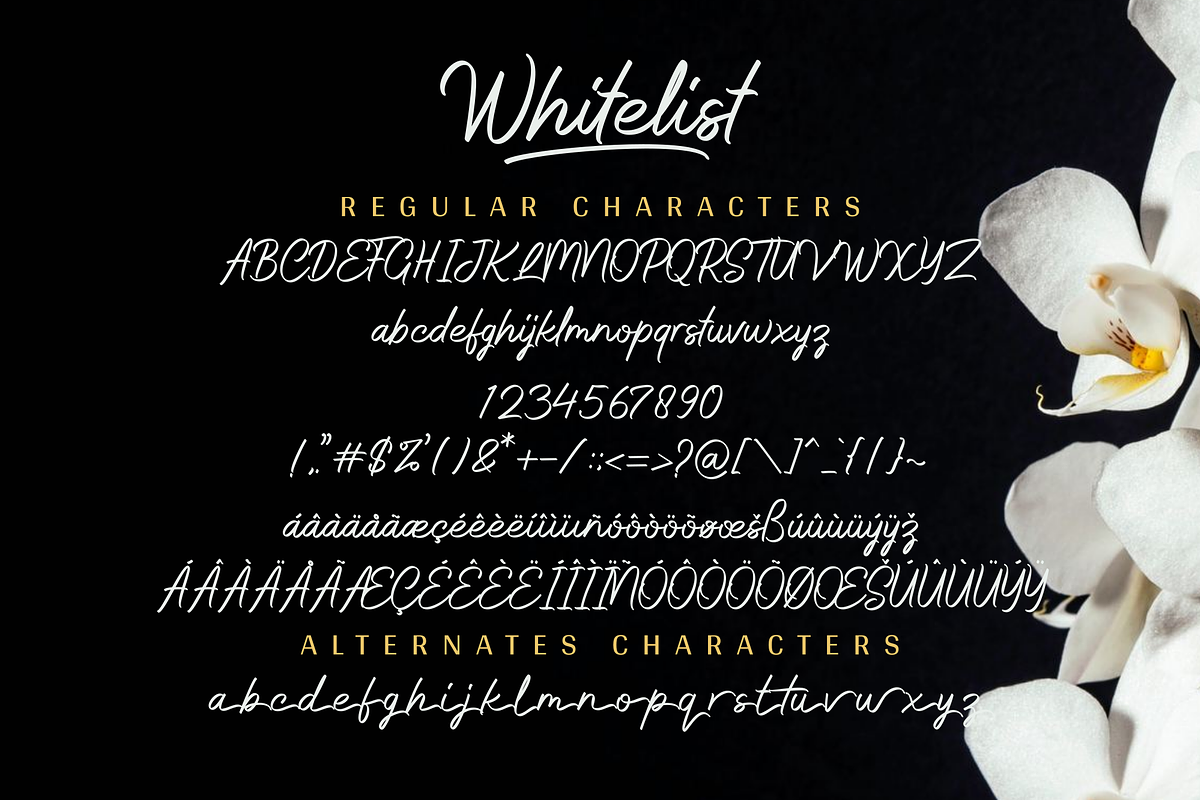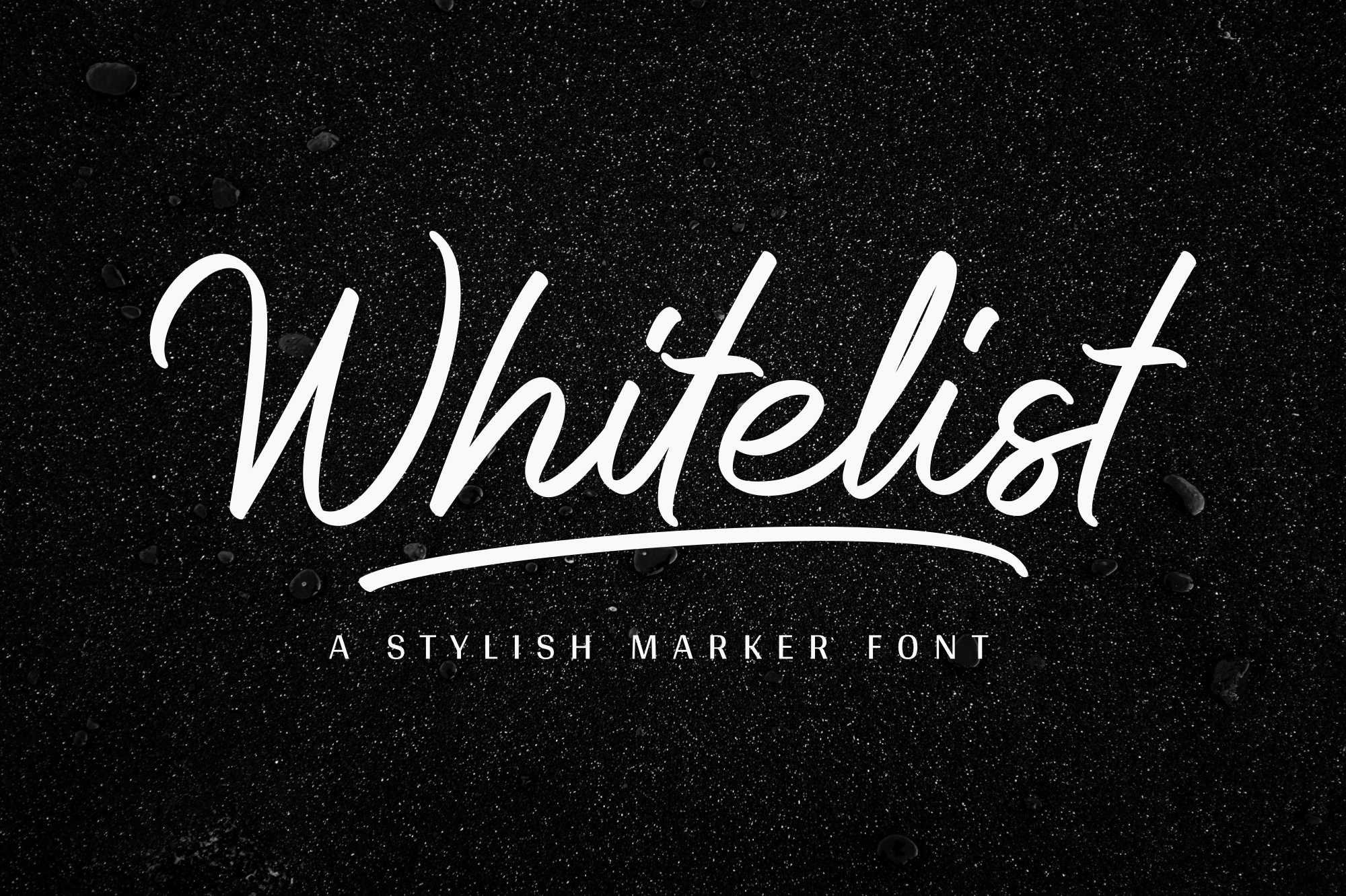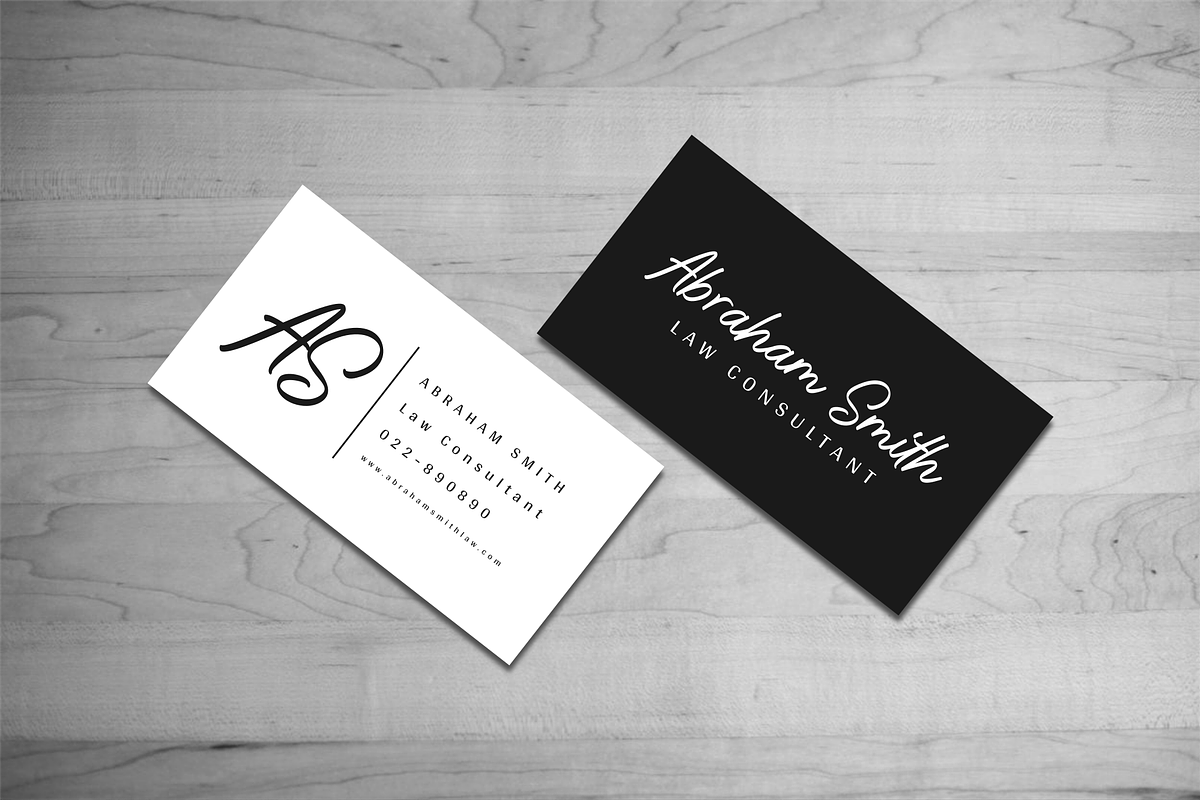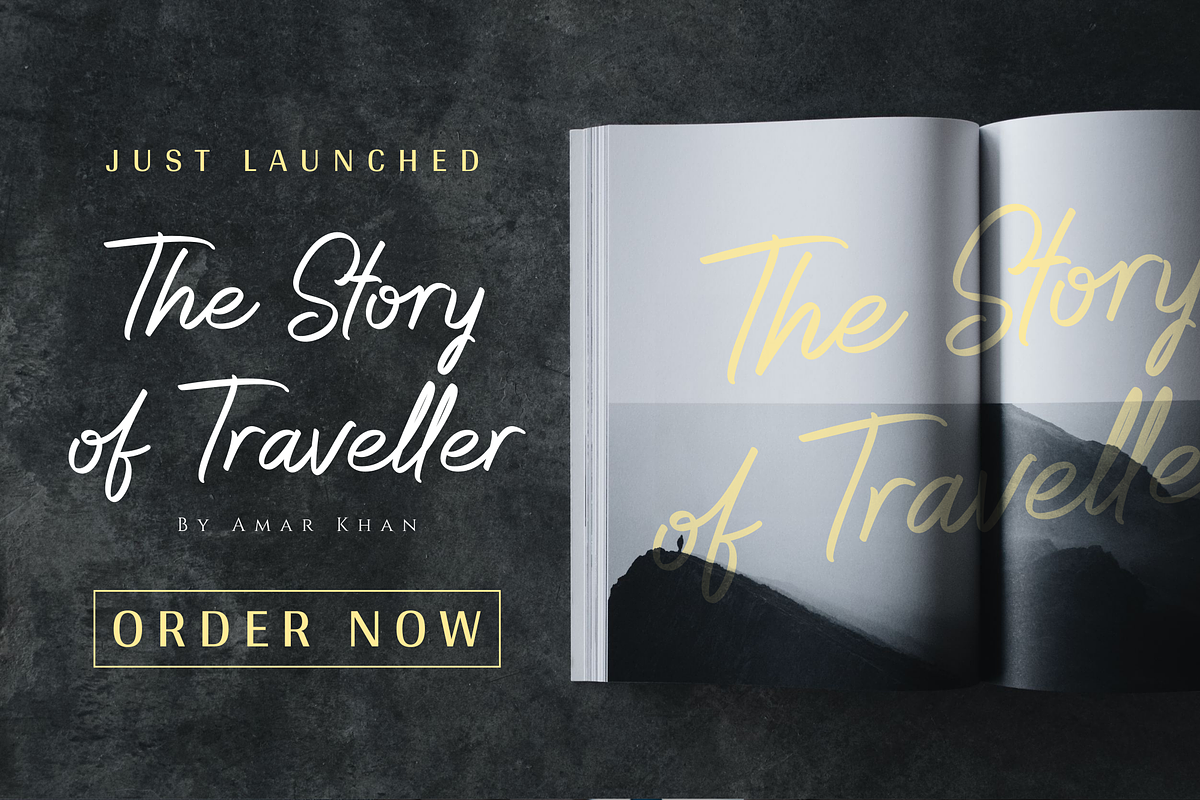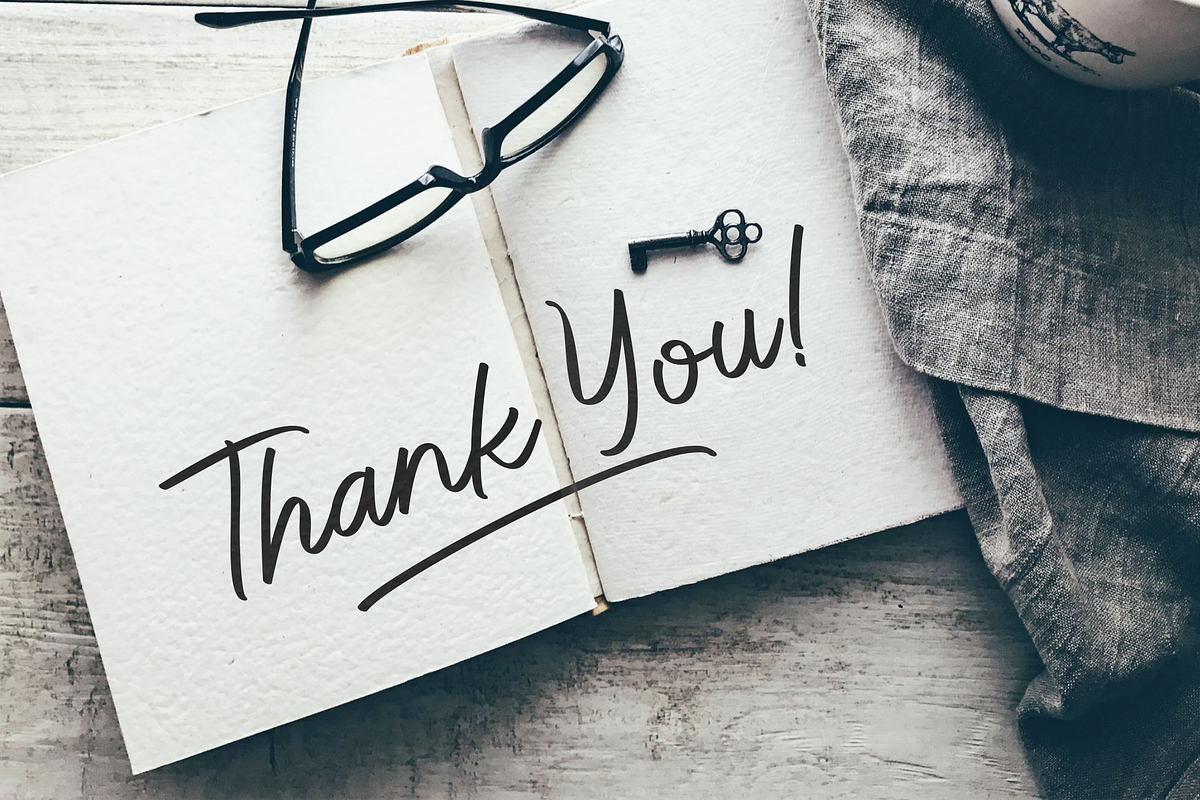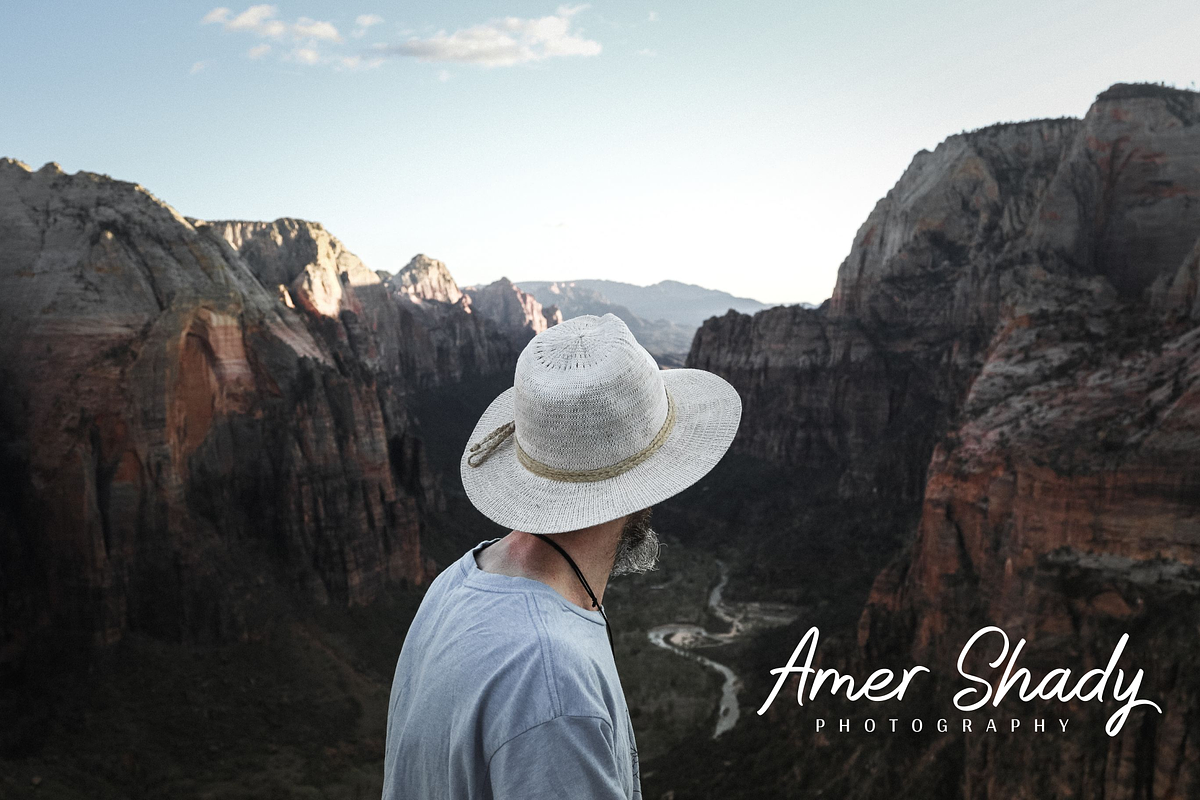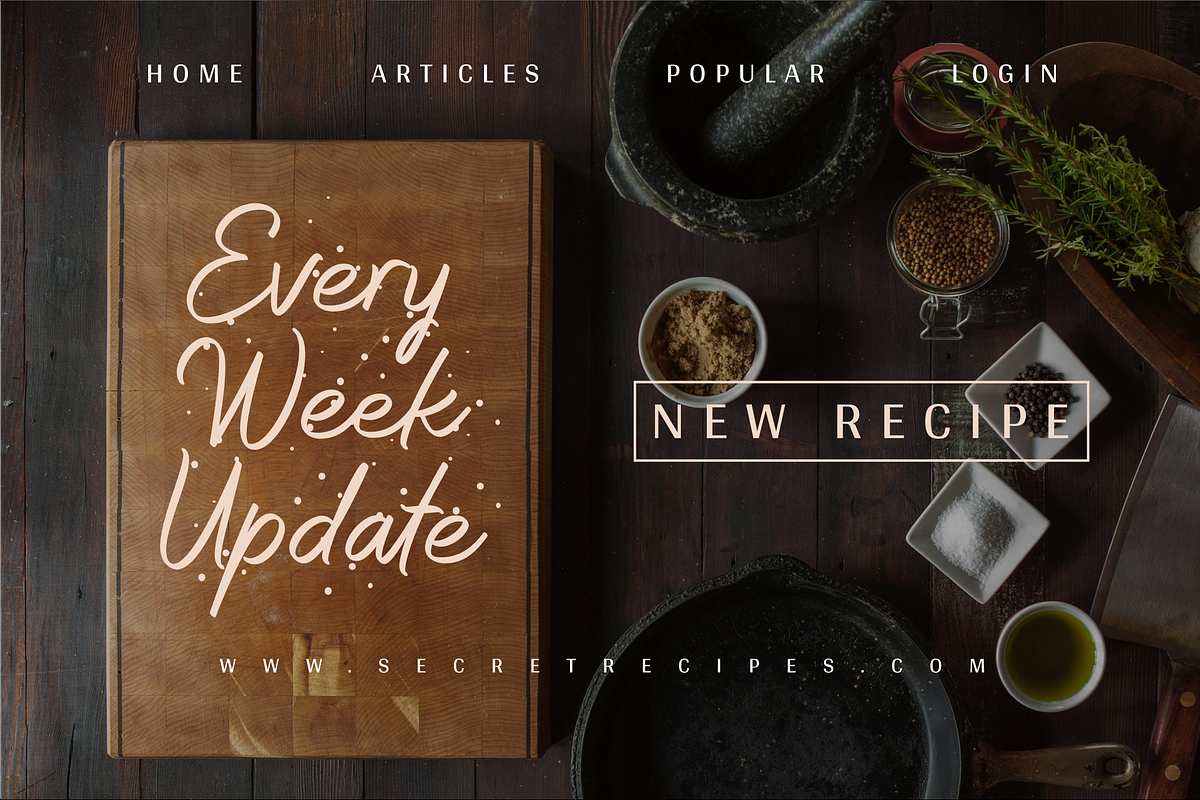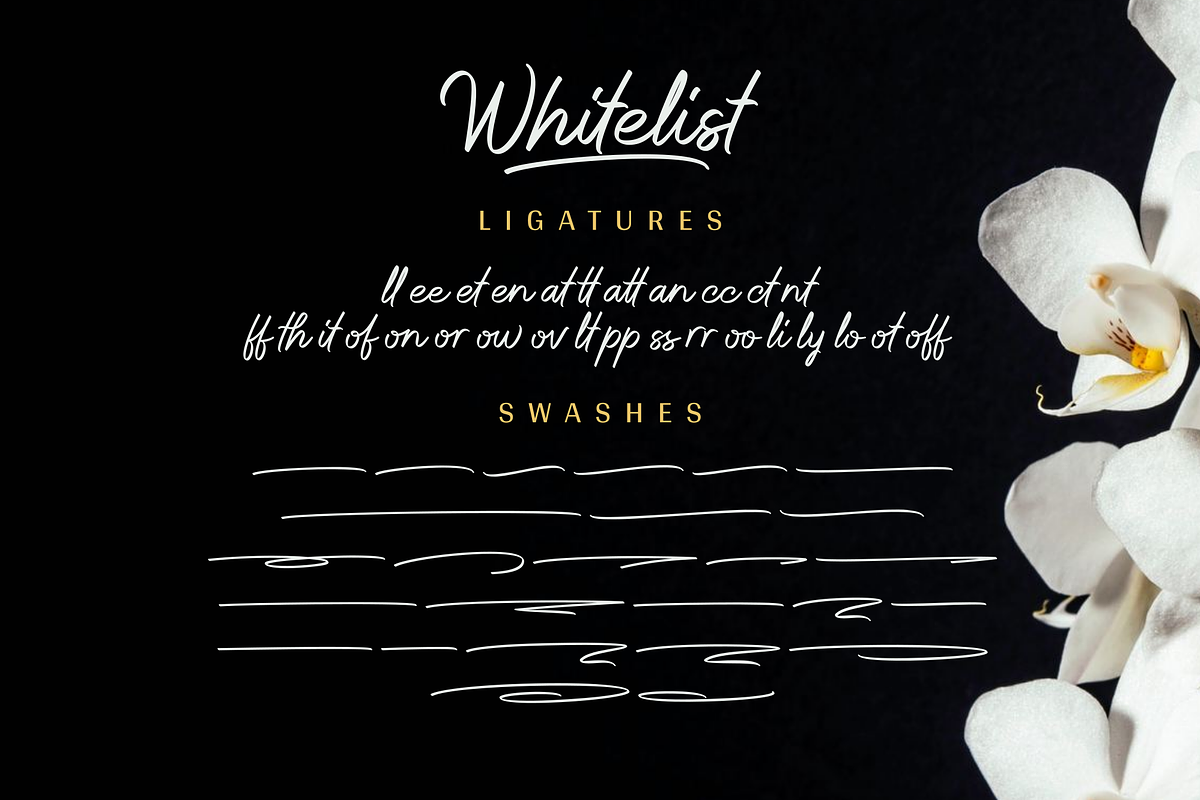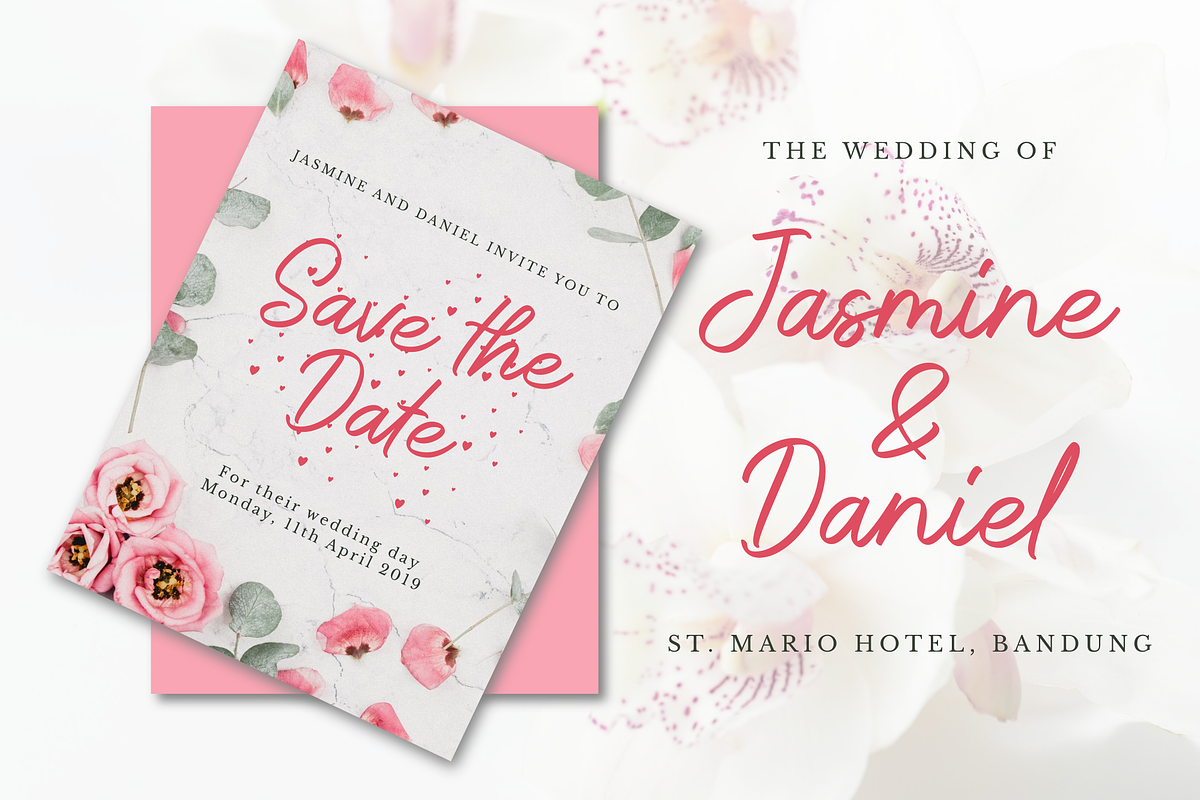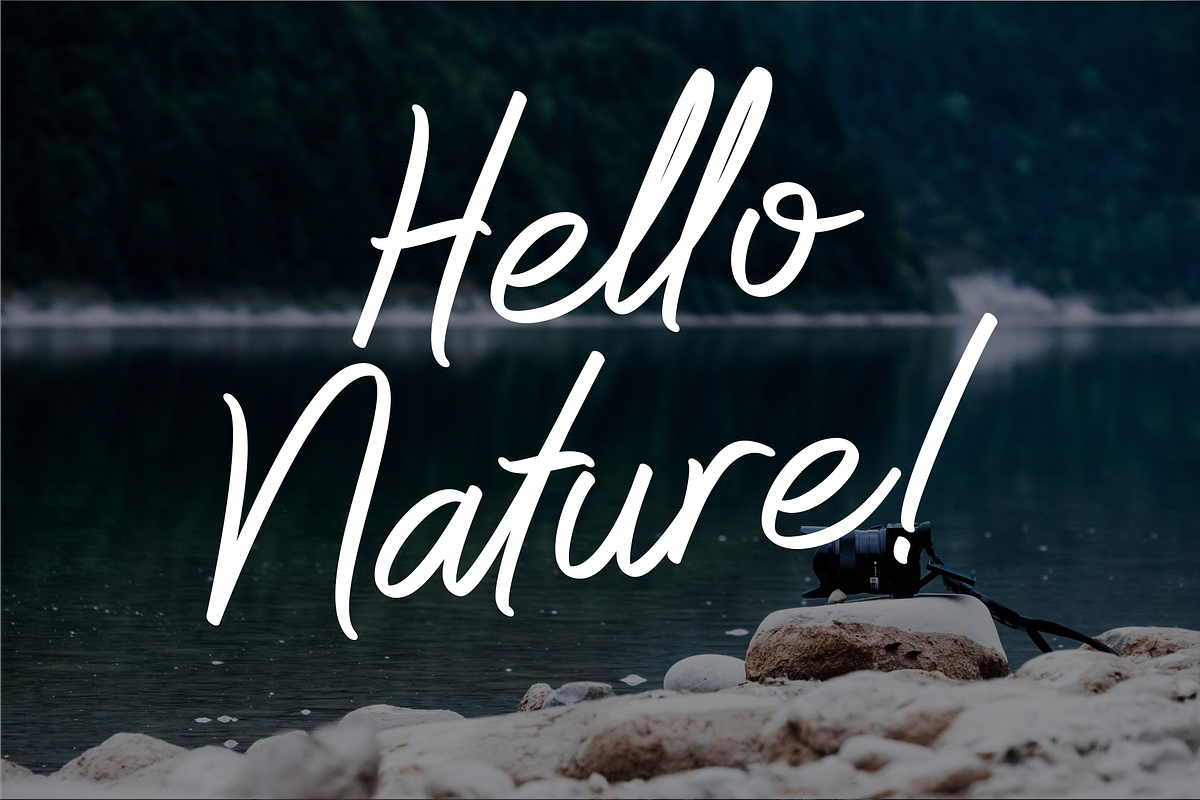
Whitelist - Marker Font
Whitelist is a stylish and elegant marker font. Whitelist was designed to keep a naturally handwritten marker-style look.
It’s a good choice for watermarks on photography, apparel, website, t-shirt, product design, signature, logo designs, quotes, branding, business cards, and many other design projects.